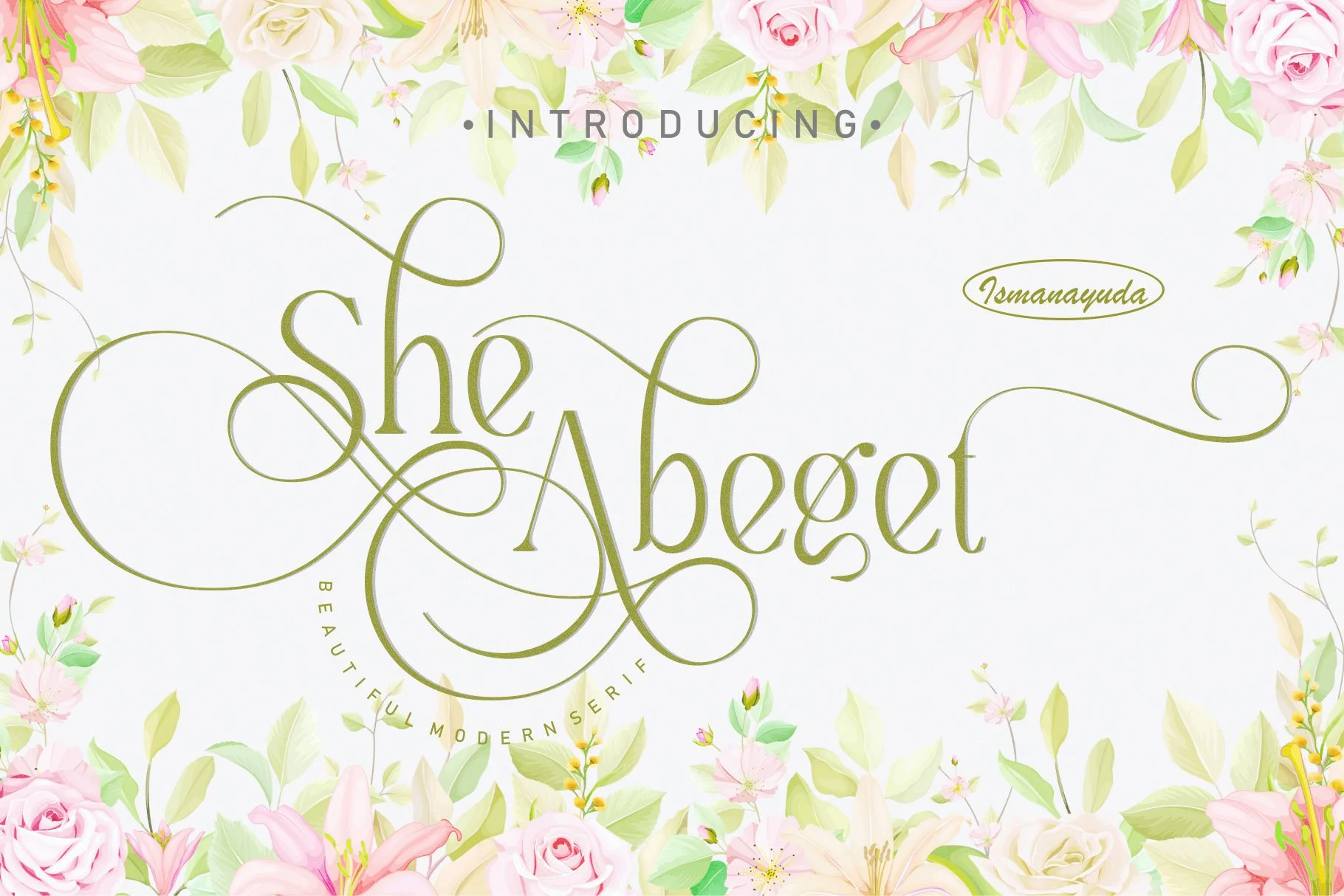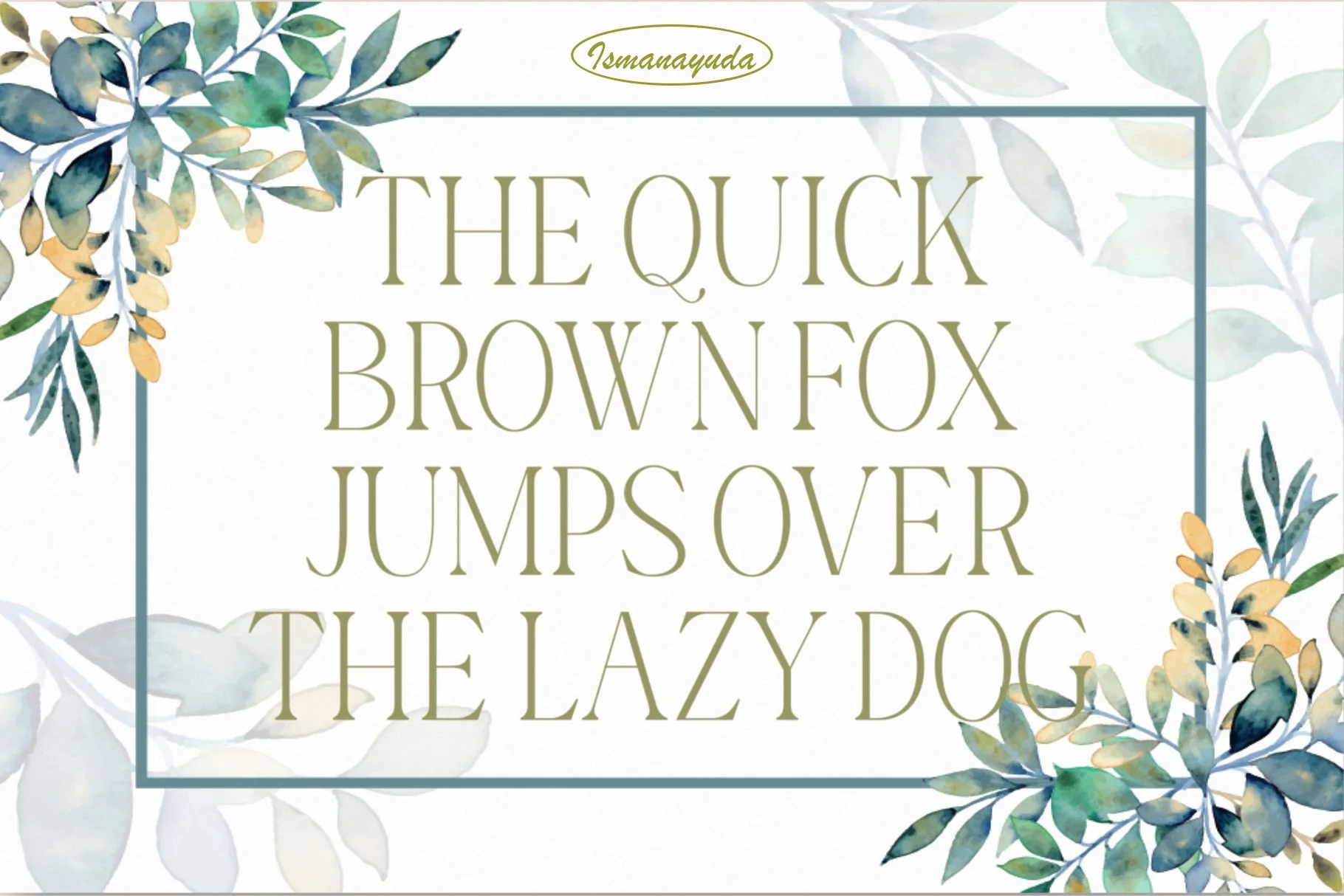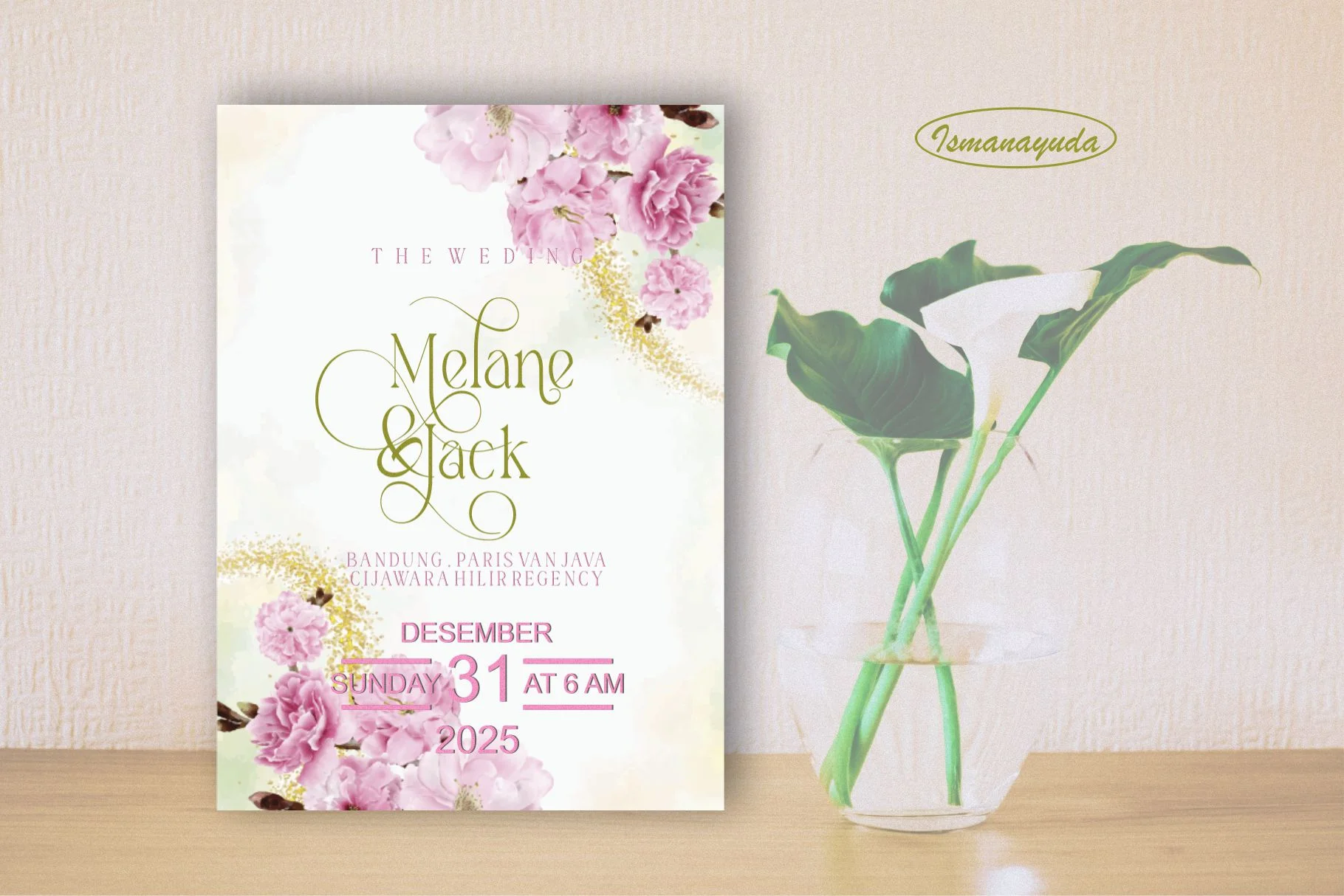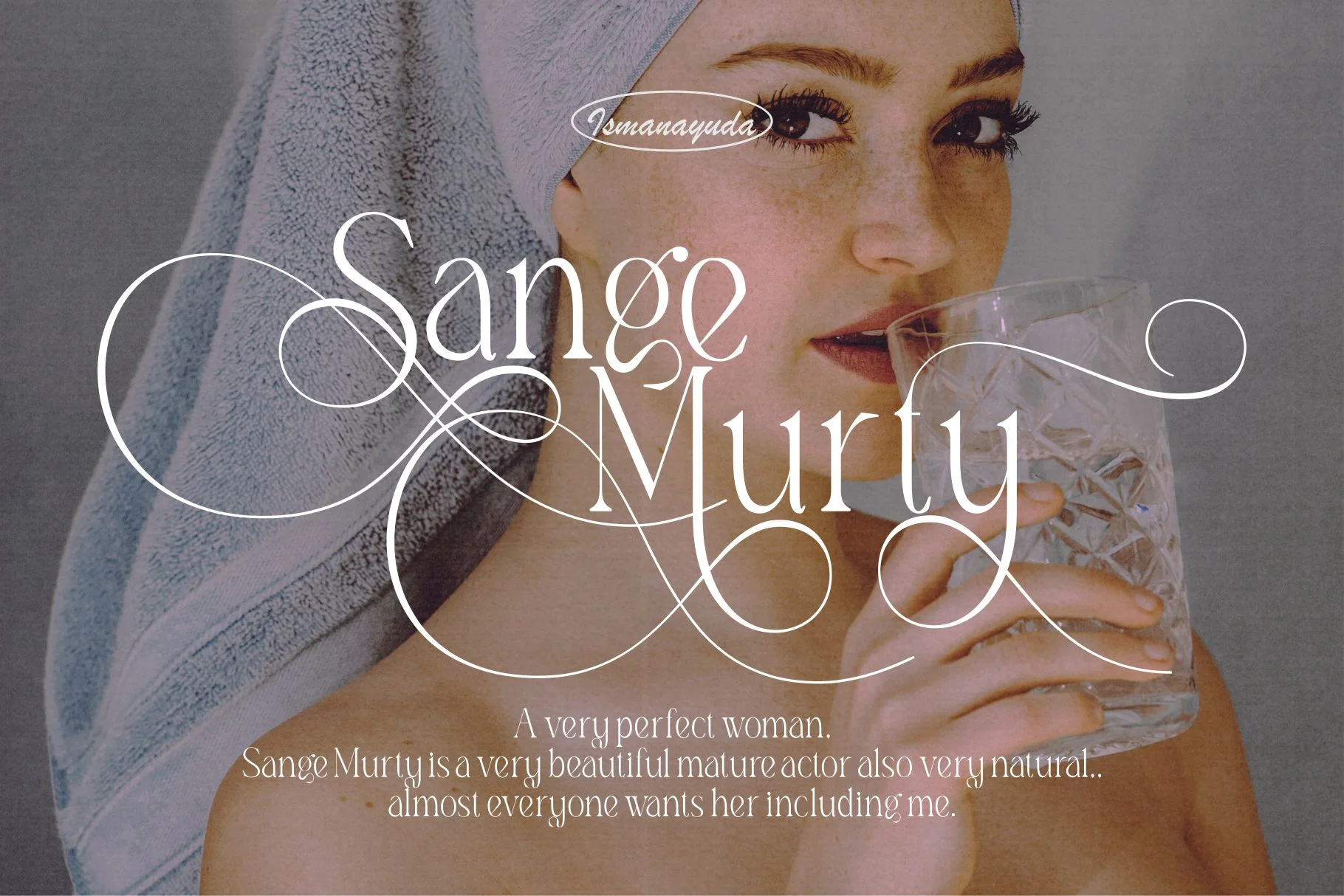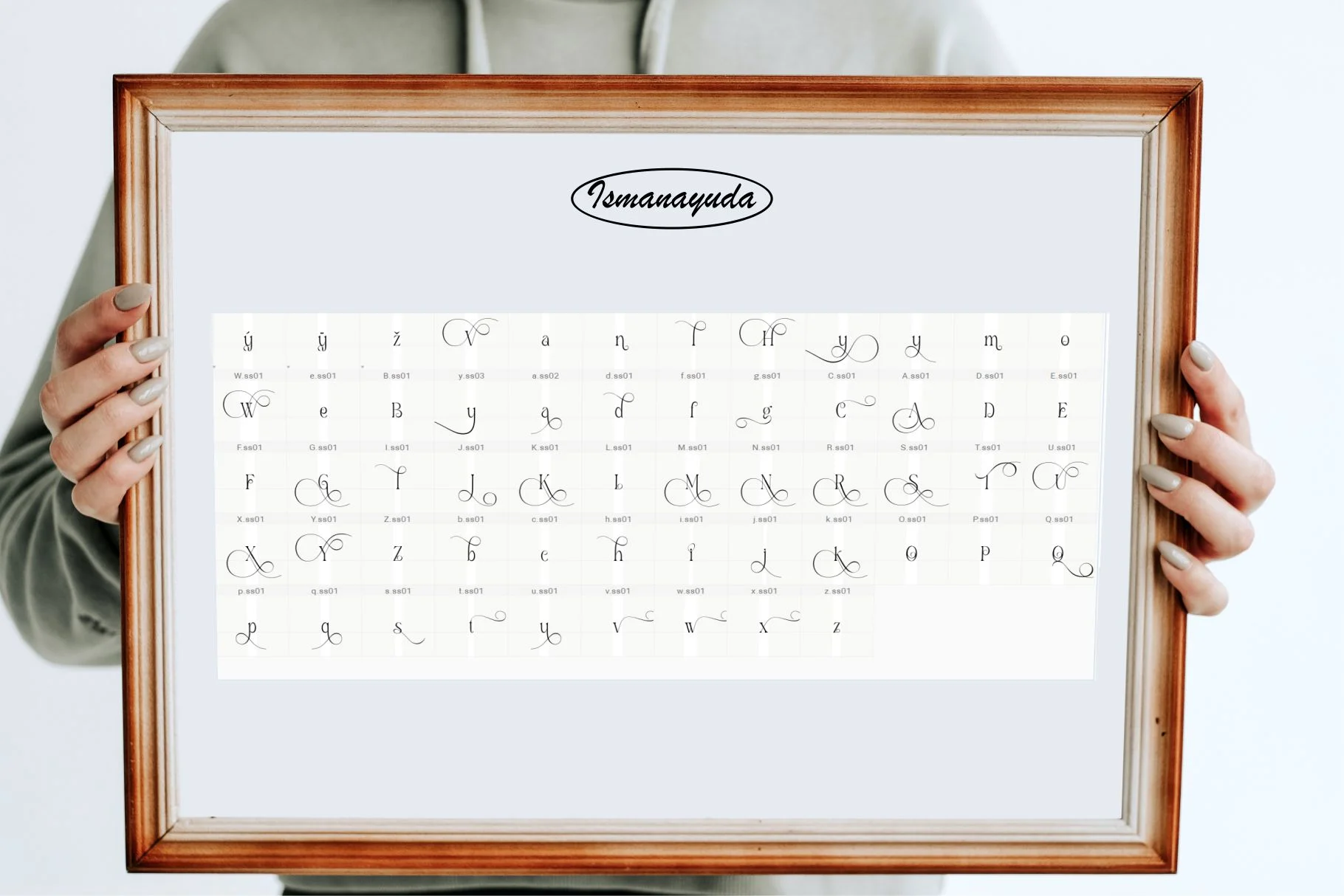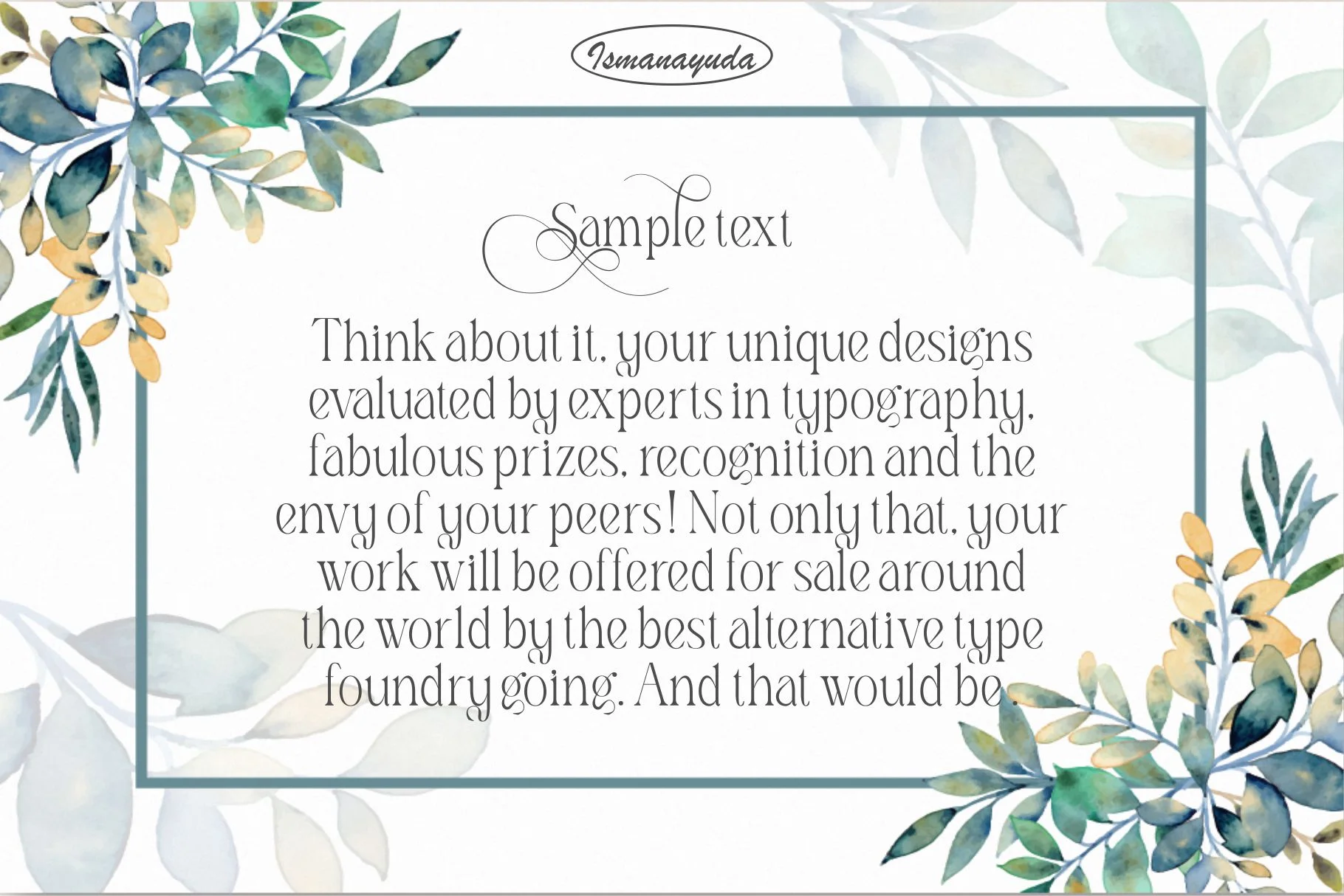
She Abeget
she abeget is a modern serif font that exudes sense of romance and sophistication. it characterized by its elegant curves dramatic sweeping flourishes create feeling timeless beauty. while the decorative